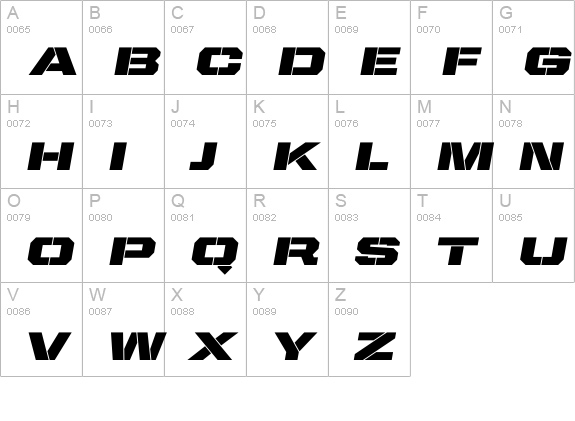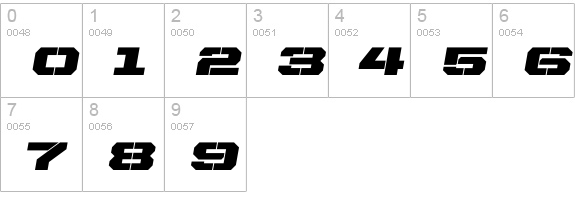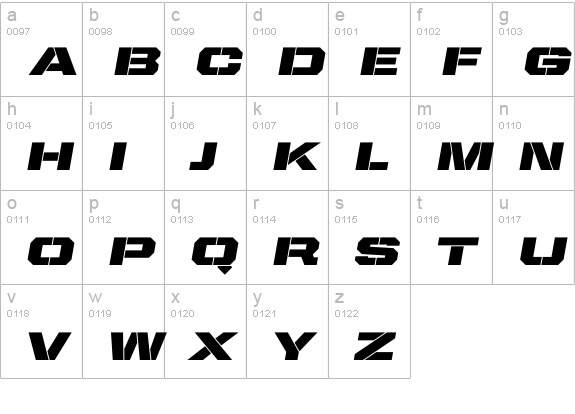
United Italic Ext Stencil Font Details
United Italic Ext Stencil is a distinctive, italic variant in the United typeface family \xE2\x80\x94 well suited to design and typography projects.
The United Italic Ext Stencil font is a bold and eye-catching typeface that effortlessly combines elegance with a touch of urban flair. Its unique stencil design adds a modern and edgy twist to any project, making it perfect for posters, logos, and headlines that demand attention. With its sleek and stylish curves, this font exudes confidence and sophistication. Each letter is meticulously crafted, ensuring a seamless flow and legibility at any size. The United Italic Ext Stencil font is a true standout, capable of transforming any design into a visual masterpiece. What sets this font apart is not just its stunning aesthetic, but also the fact that it is freely available to download at FontsMarket.com. Whether you're a professional designer or an aspiring artist, this font offers you the opportunity to unleash your creativity without any cost or restrictions. With the United Italic Ext Stencil font, you can effortlessly create captivating designs that leave a lasting impact. Its versatility allows it to be used in a wide range of projects, from branding to advertising, providing you with endless possibilities to explore. So why wait? Download the United Italic Ext Stencil font today from FontsMarket.com and experience the freedom to create stunning visuals that captivate and inspire. Let your imagination run wild with this exceptional typeface that combines elegance, edge, and the best part - it's completely free!